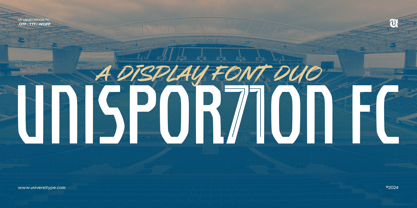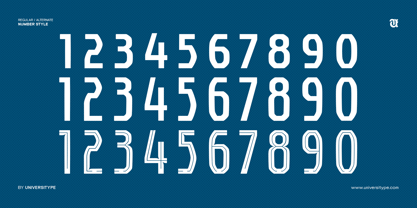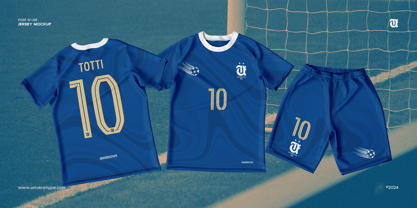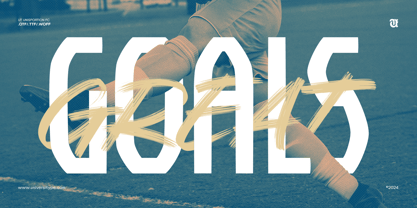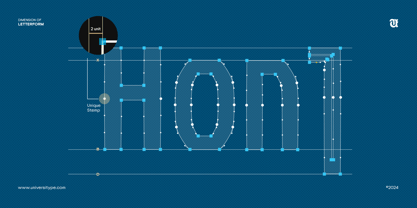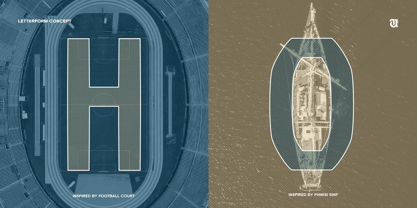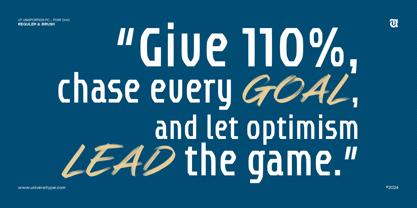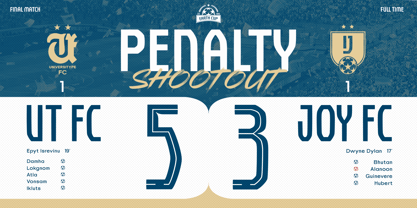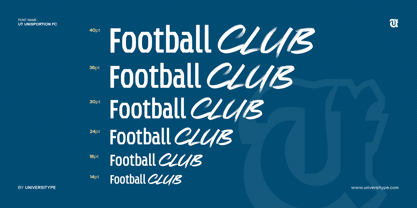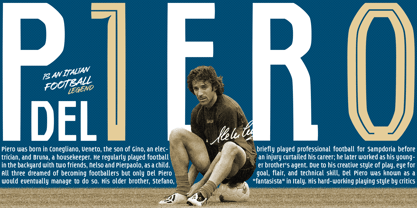
UT Unisportion FC: A Font Duo That Takes the Win
UT Unisportion FC is a sporty font pair that’s bold, dynamic, and influenced by the action-packed vibes of sports culture. This font combines precision and dynamic movement with two distinct styles, UT Unisportion FC Regular and UT Unisportion FC Brush. Convert your designs into a unique visual language that is guaranteed to leave a lasting impression.
Designed to give your projects a competitive edge, UT Unisportion FC is perfect for brands and creatives alike who want versatility with a little personality.
UT Unisportion FC is inspired by the rhythm and excitement of sports culture and the rich heritage of Buginese maritime architecture.
Target Audience:
• Sports teams and leagues
• Athletic apparel brands
• Event organizers (Sports, Esports, Tournaments)
• Designers developed aggressive marketing campaigns or game-day graphics
Key Features:
• Dual Styles: Clean, structured Regular for legibility and rough, expressive Brush for a dynamic touch.
• OpenType Features: Supports stylistic alternates and ligatures, plus two stylistic sets for customization
• Versatility: Workable in digital and print applications, from attention-grabbing headlines to eye-catching logos;
• Readability: Created with crisp strokes and excellent kerned typeforming, so the design may be read at any size.
The Design Inspiration
With a long history of maritime traditions from the Buginese people, the architecture details from the iconic Pinisi boat became ideas and one of the main references for designing this font duo (UT Unisportion FC Font Duo) The traditional design of this ship, which has existed for hundreds of years, is not only a form of the Buginese people’s ability to sail at sea but also a work that tells the beauty which never fades with unique carvings and stunning curves in this wooden vessel. Nestled in this rich cultural crossroad, UT Unisportion FC Font Duo embodies the romance of high seas adventures and a touch of vintage timelessness.
Pinisi Boat: Heritage and Craftsmanship
• Ornate Wood Carvings: The UT Unisportion FC Regular style is inspired by the elaborate ornamentations of a Pinisi boat that highlight the handiwork of Buginese artisans. Simplified forms and elegant lines reflect the accuracy and beauty of these old school carvings, ideal for modern Day sophistication and elegance.
• Fluid, Dynamic Silhouette of a Traditional Vessel: The shape of the traditional Pinisi boat is graceful, dynamic like wind-filled sails from the UT Unisportion FC Brush style. Natural and humanistic curves that are perfect for adding some extra emotional depth and humanity to your creative project, similar to the way sea-weathered signage or a sailor log book look.
The Design:
The anatomy of UT Unisportion FC is a harmonious blend of architectural and maritime influences. The control characters “H,” “O,” and “N” highlight its foundation in the clean geometry of stadium design, while the broader letter anatomy takes inspiration from the front and back decks of the Phinisi boat. The curved lines and pointed edges reflect the elegance and functionality of the vessel’s structure, creating a font that exudes both balance and dynamism. This intricate approach ensures that every character carries a sense of movement and purpose.
We are Universitype, a passionate group of four creative designers based in the vibrant city of Makassar, Indonesia. Our expertise lies in the art of crafting and designing typography that not only captures attention but also tells a story. The Universitype inspired by the breathtaking beauty of our country and the rich cultural diversity that surrounds us, we infuse each of our designs with a unique blend of tradition and innovation. Our journey began over five years ago, and since then, we have been dedicated to pushing the boundaries of typography design. Our mission is to create fonts that are not only visually stunning but also versatile and functional. We believe that great typography can elevate any project, and we are committed to providing high-quality designs that meet the diverse needs of our clients.